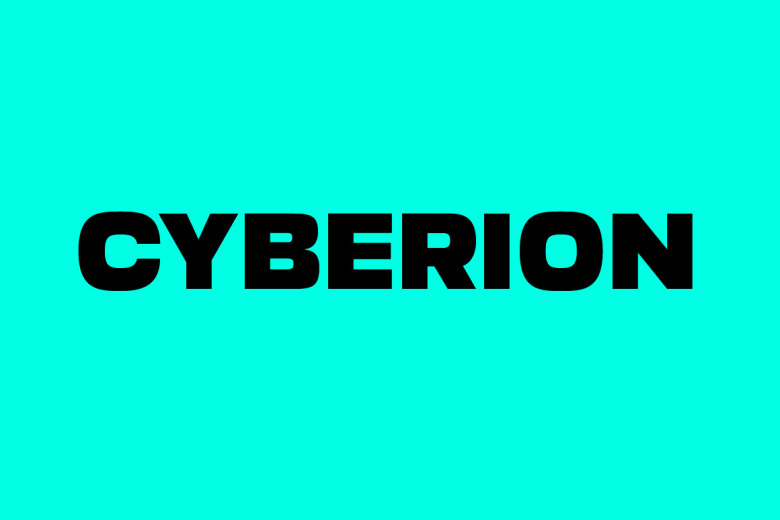
Cyberion Font
Cyberion is a modern display sans serif font family with two styles. The style of this font are modern, sporty, strong, techno, etc. The style make this font looks great and standout for tittle, headline, logo, etc.
Cyberion Sans Serif Font